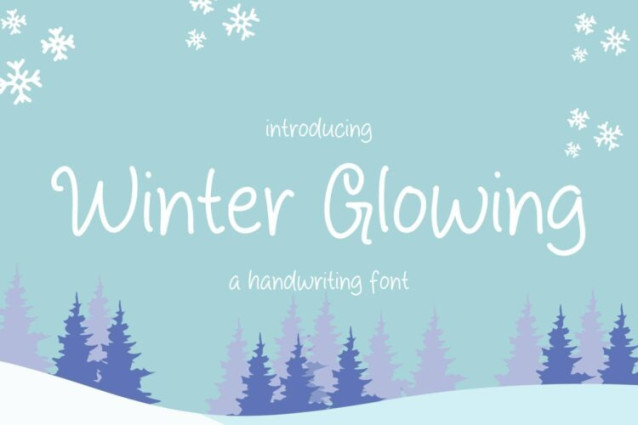
Winter Glowing Handwriting Font
Winter Glowing Handwriting Font is a simple and friendly handwritten font. Its natural and unique style makes it incredibly fitting to a large pool of designs. The only limit is your imagination!